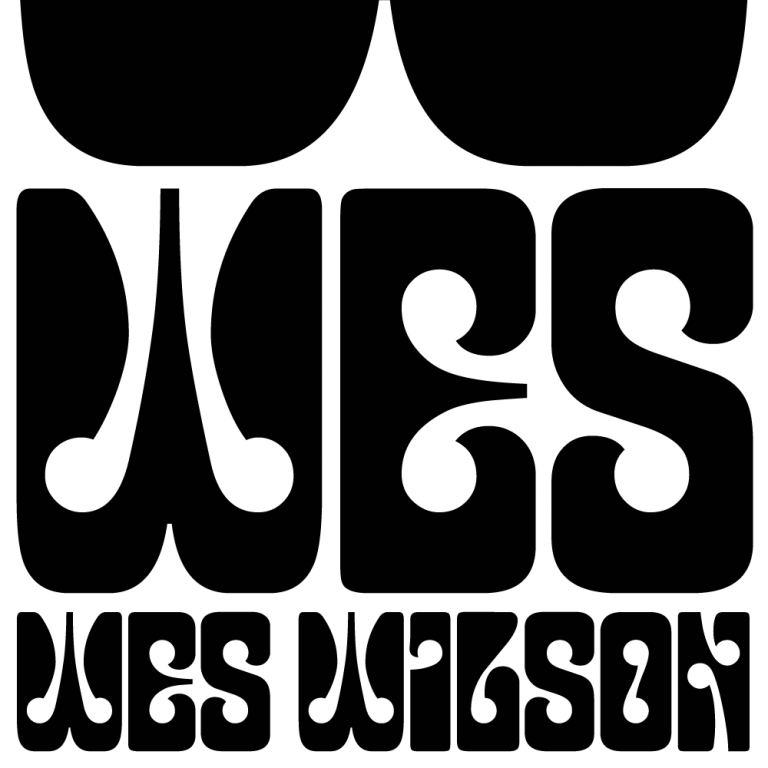
Wes Wilson Font - The wes wilson font is an all capitals typeface inspired by the pioneer of. This font features bold, rounded characters with a distinct psychedelic style.
This font features bold, rounded characters with a distinct psychedelic style. The wes wilson font is an all capitals typeface inspired by the pioneer of.
The wes wilson font is an all capitals typeface inspired by the pioneer of. This font features bold, rounded characters with a distinct psychedelic style.
This font features bold, rounded characters with a distinct psychedelic style. The wes wilson font is an all capitals typeface inspired by the pioneer of.
The wes wilson font is an all capitals typeface inspired by the pioneer of. This font features bold, rounded characters with a distinct psychedelic style.
The Wes Wilson Font Is An All Capitals Typeface Inspired By The Pioneer Of.
This font features bold, rounded characters with a distinct psychedelic style.